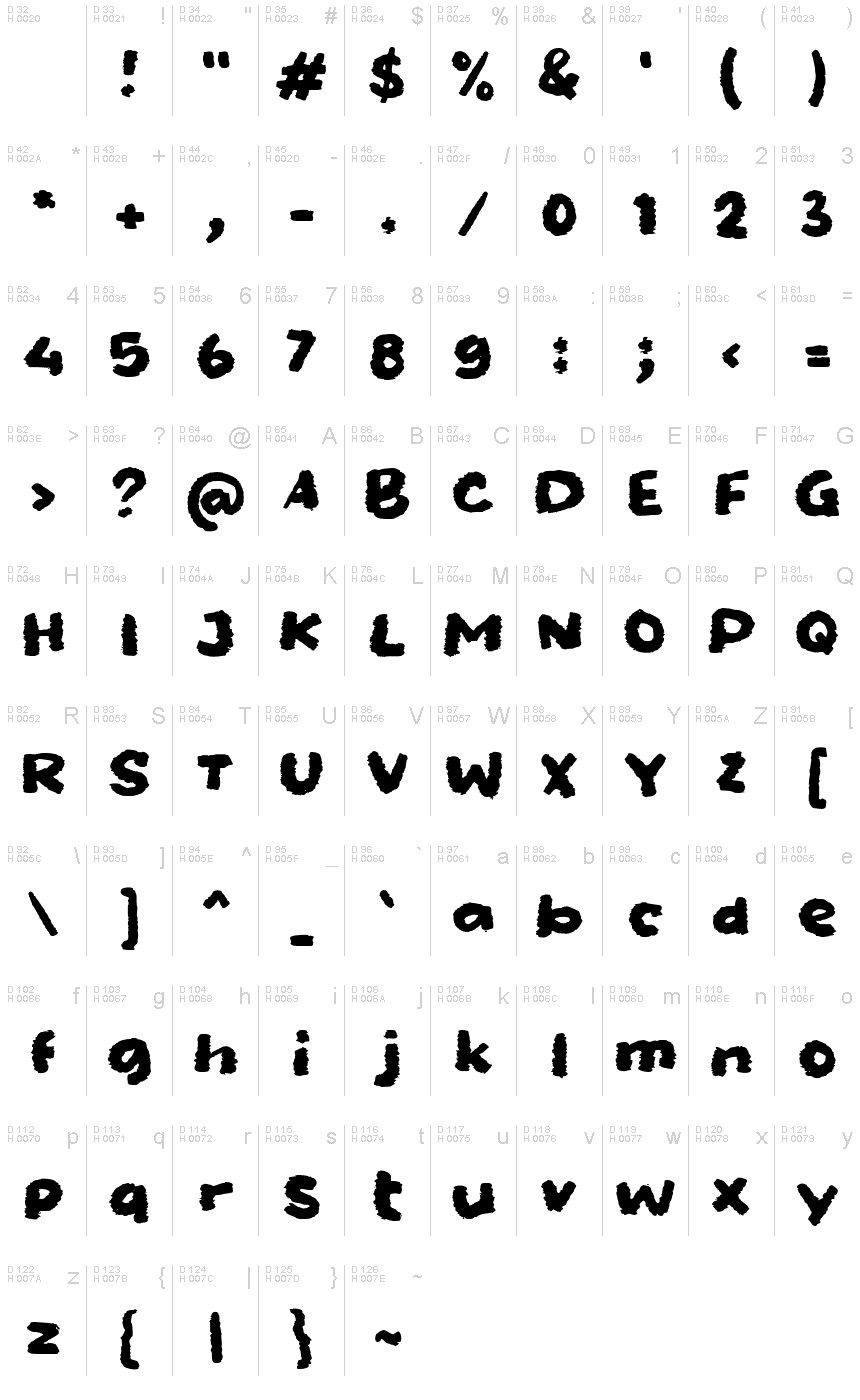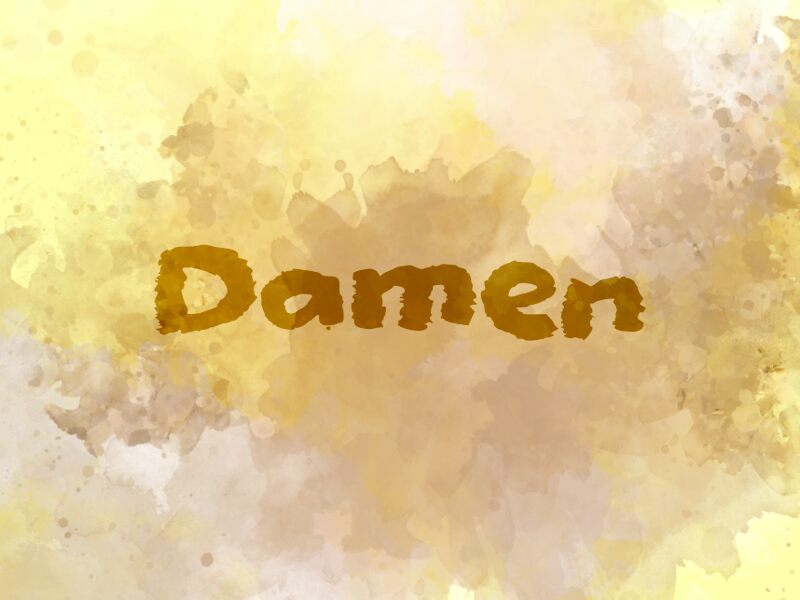
Damen
Damen is a bold script font designed by Wahyu Eka Prasetya. Its trash style gives it an edgy and unique look perfect for projects needing to stand out from the crowd. Use Damen for eye-catching logos, captivating posters and attention grabbing headlines.